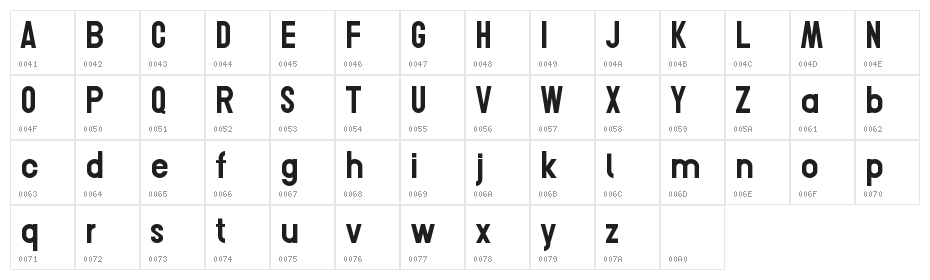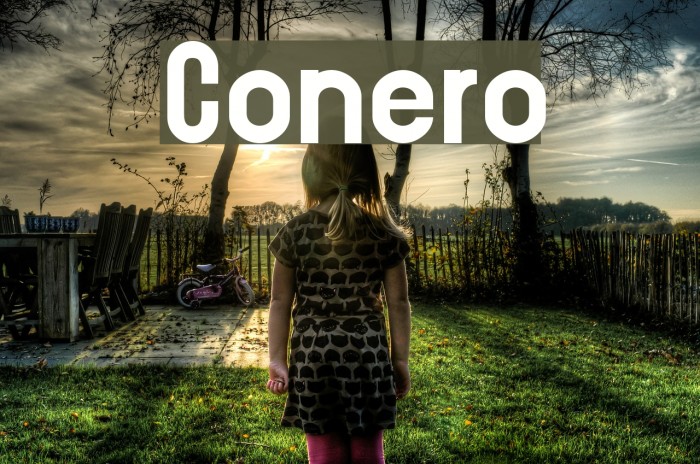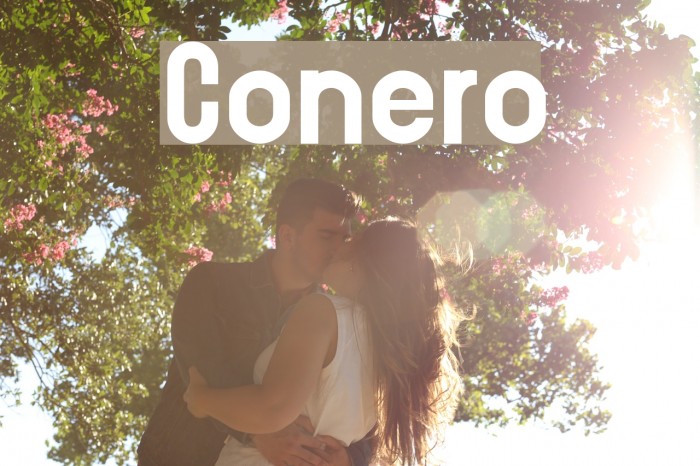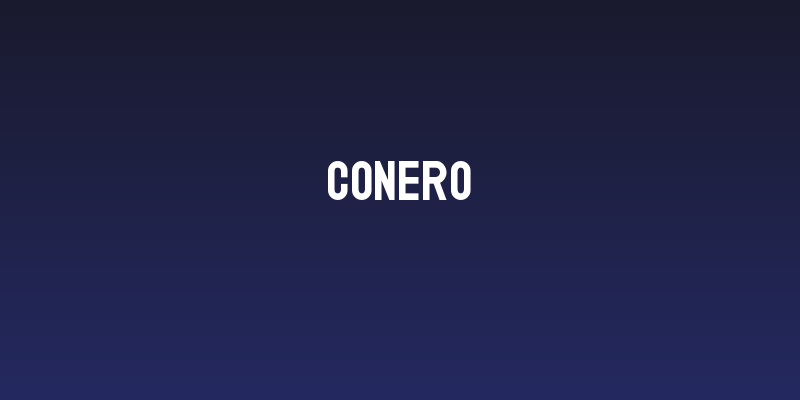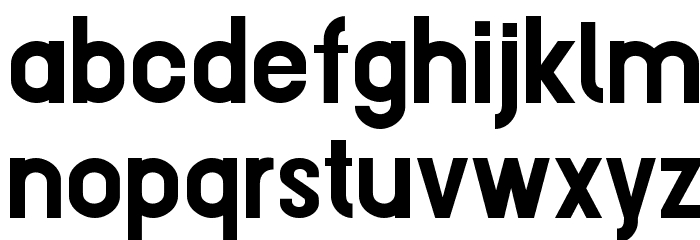
Conero Font
Conero Description
This font features a bold and modern sans-serif style with clean, straight lines and uniform stroke widths. The uppercase and lowercase letters are well-proportioned, offering a strong and assertive appearance. The characters are designed with a geometric precision, making them highly legible and suitable for various design applications. The absence of serifs gives it a contemporary feel, while the consistent weight across all characters ensures a cohesive look. This font is versatile, making it ideal for both digital and print media.
| Proposed Projects | Ideal for branding, advertising, headlines, and digital interfaces where clarity and impact are essential. |